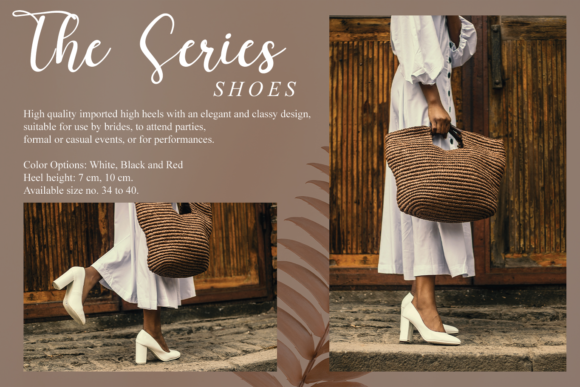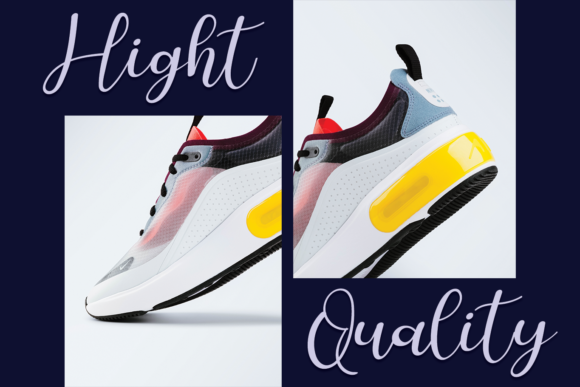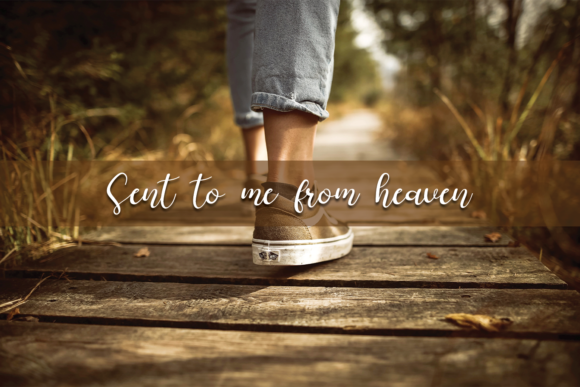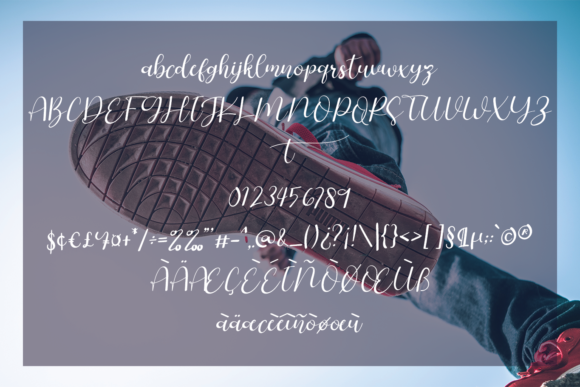
Introducing Brotherhood Font: The Perfect Script Font for Creative Projects
Are you a designer or crafter looking for a unique and charming script font to elevate your creative projects? Look no further than Brotherhood Font! This well-balanced script font features playful characters that seem to dance along the baseline, adding a touch of whimsy and personality to any design.
What Makes Brotherhood Font Special?
Brotherhood Font is a standout script font that boasts a range of characteristics that make it perfect for creative projects. Here are just a few reasons why you should consider adding it to your font collection:
• Charming and Playful Characters: The characters in Brotherhood Font are designed to be charming and playful, with a sense of movement and energy that adds visual interest to any design.
• Well-Balanced Design: The font features a well-balanced design that ensures it remains legible and easy to read, even at smaller sizes.
• Versatile: Brotherhood Font is versatile and can be used for a wide range of creative projects, from branding and packaging to invitations and social media graphics.
How to Use Brotherhood Font in Your Creative Projects
Brotherhood Font is easy to use and can be incorporated into a variety of creative projects. Here are a few ideas to get you started:
• Branding and Packaging: Use Brotherhood Font to add a touch of personality to your brand’s packaging and marketing materials.
• Invitations and Stationery: Add a playful and whimsical touch to your invitations and stationery with Brotherhood Font.
• Social Media Graphics: Use Brotherhood Font to create eye-catching social media graphics that stand out from the crowd.
• Handmade Crafts: Brotherhood Font can also be used to add a personal touch to handmade crafts, such as scrapbooking and card making.
Tips for Getting the Most Out of Brotherhood Font
To get the most out of Brotherhood Font, here are a few tips to keep in mind:
• Experiment with Different Sizes: Brotherhood Font looks great at a range of sizes, so don’t be afraid to experiment and find the perfect size for your project.
• Pair it with Other Fonts: Brotherhood Font pairs well with a range of other fonts, so try combining it with other fonts to create a unique and interesting look.
• Use it to Add Emphasis: Use Brotherhood Font to add emphasis to certain words or phrases in your design, creating a visual hierarchy that draws the viewer’s eye.
Brotherhood Font is a charming and versatile script font that is perfect for designers and crafters looking to add a touch of personality to their creative projects. With its well-balanced design, playful characters, and range of uses, it’s a font that is sure to become a staple in your font collection. So why wait? Download Brotherhood Font today and start creating!
• Is Brotherhood Font easy to read? Yes, Brotherhood Font is designed to be legible and easy to read, even at smaller sizes.